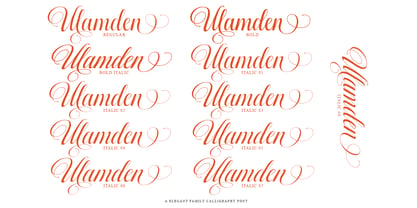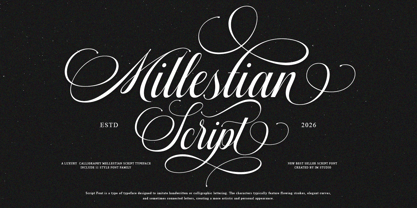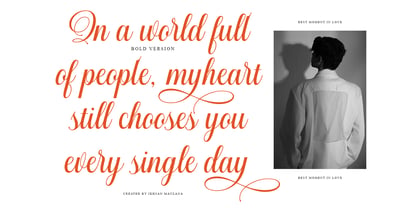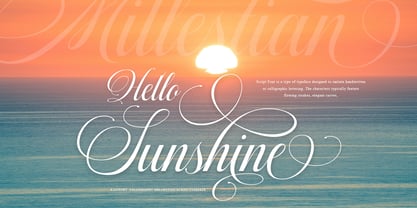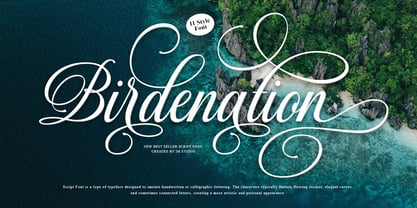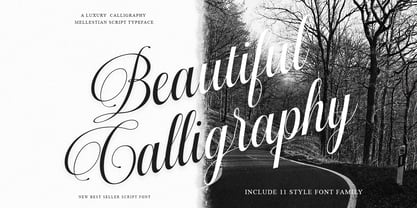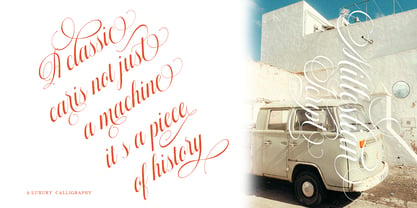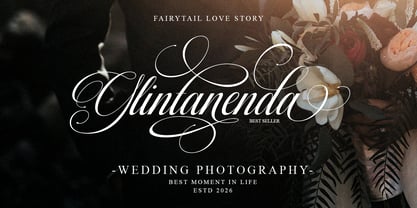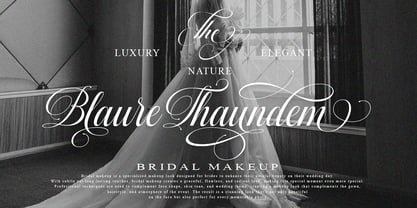
Mallestian Script
by IM Studio
The Mallestian Script Font Family was designed by Ikhsan Maulana and published by IM Studio. Mallestian Script contains 11 styles and family package options. More about this family
Mallestian Script is a refined !! Its smooth letter connections and balanced proportions give Mallestian Script a clean, feminine, and highly readable appearance while maintaining a distinctive handwritten personality. The graceful curves and stylish alternates make every word look expressive, elegant, and visually captivating. Perfect for a wide range of creative projects, Mallestian Script shines in wedding invitations, luxury branding, logos, restaurant menus, product packaging, fashion and beauty designs, stationery, magazines, novels, greeting cards, labels, and high-end advertising. Whether used for headlines or signature-style typography, this font brings a sense of elegance and exclusivity to any design. Mallestian Script also includes PUA encoding, allowing you to easily access all alternate characters and decorative glyphs without the need for additional design software. Add a touch of timeless elegance and modern sophistication to your designs with Mallestian Script.
About IM Studio
Let me introduce myself, my name is Ikhsan Maulana. I am the owner of IM Studio Foundry which was founded in 2018. IM Studio is a font design studio based in Indonesia. Currently, I am fully pursuing my new passion. I fell in love with the world of writing, drawing letters, and love all forms of creativity. I love exploring and seeing how typography reflects a brand's personality. I want to continue to develop my creativity and use my passion to provide greater benefits for myself and the designer community. I created my first font in mid-2018. Since then, I have transformed my freelance business into Type Foundry. Founding IM Studio to help designers choose their projects.Thank you. Ikhsan Maulana